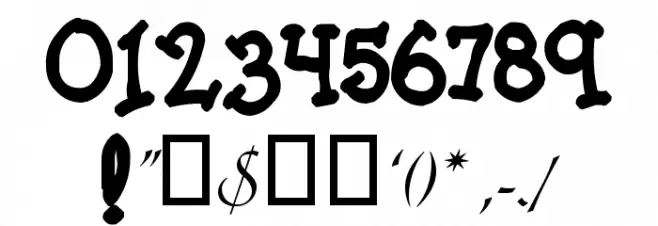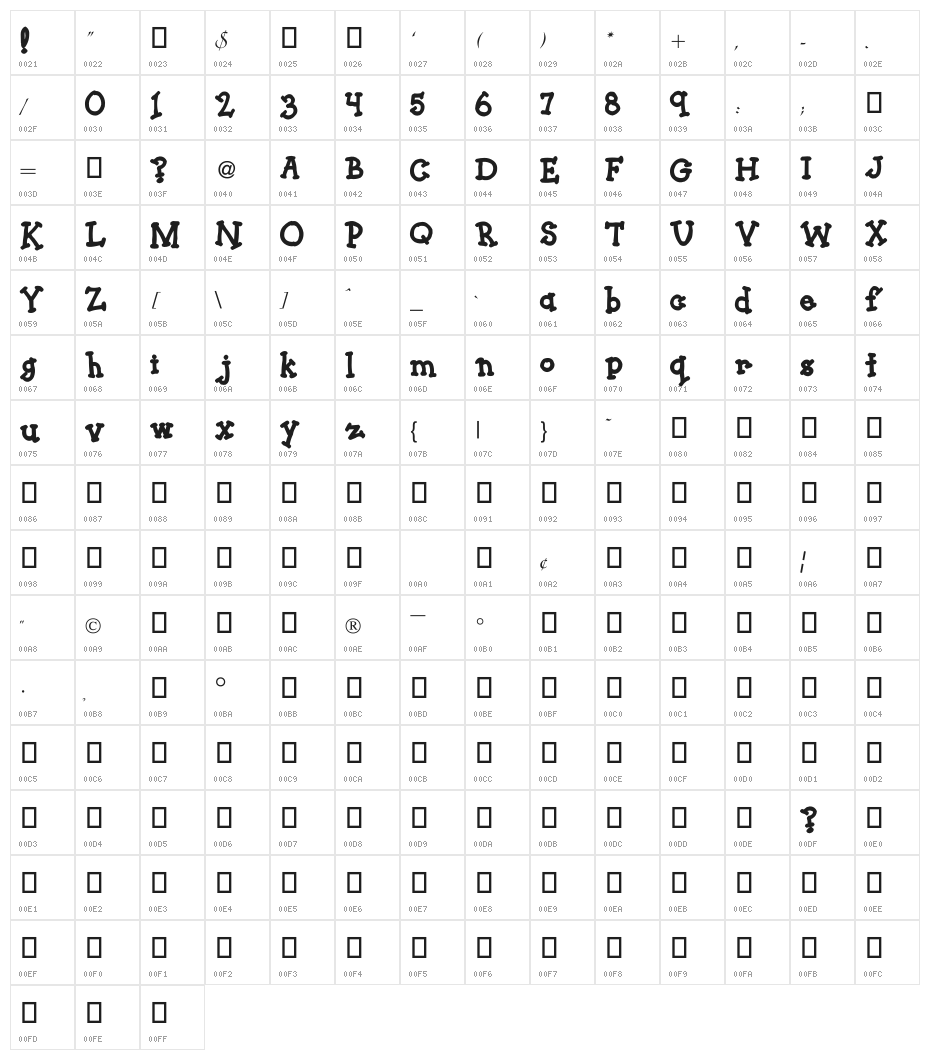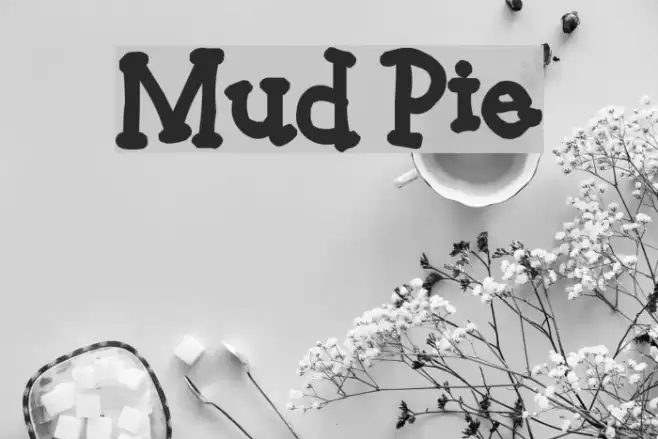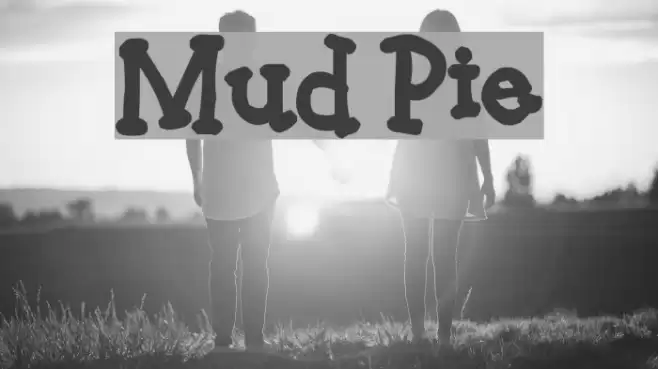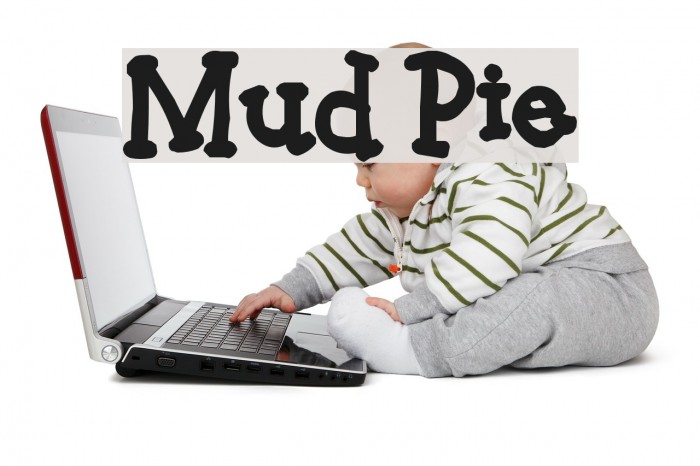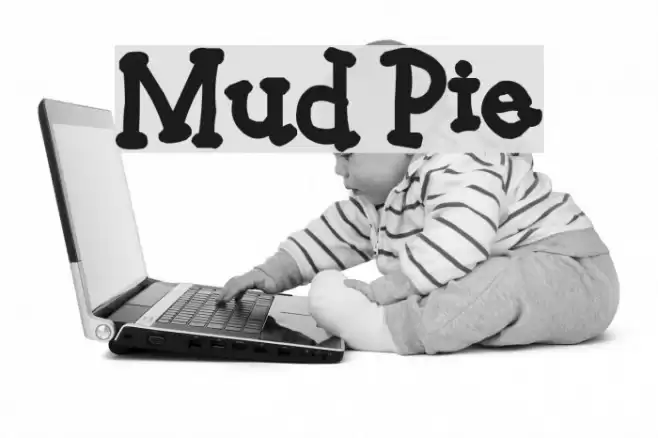
Mud Pie Font
Mud Pie Description
This playful and whimsical font features bold, rounded characters with a hand-drawn appearance. The letters have a slightly uneven baseline, adding to the casual and informal style. The strokes are thick and consistent, giving the font a strong presence. The uppercase and lowercase letters maintain a cohesive look, while the numbers and special characters complement the overall design. This font exudes a fun and friendly vibe, making it ideal for creative projects.